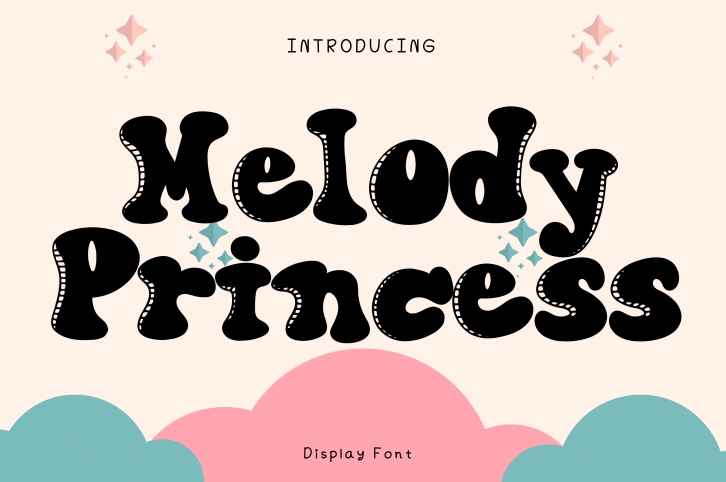
Melody Princess is a whimsical and chic display font. It can easily be matched to an incredibly large set of projects, so add it to your creative ideas and notice how it makes them stand out!